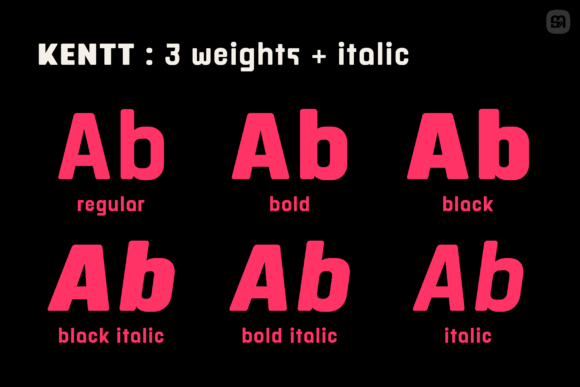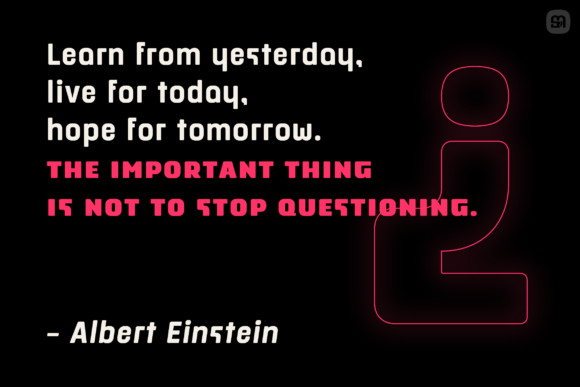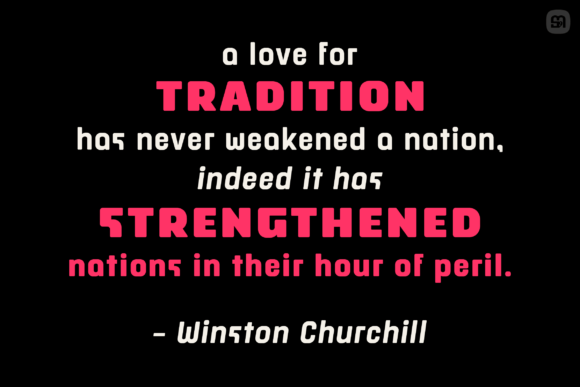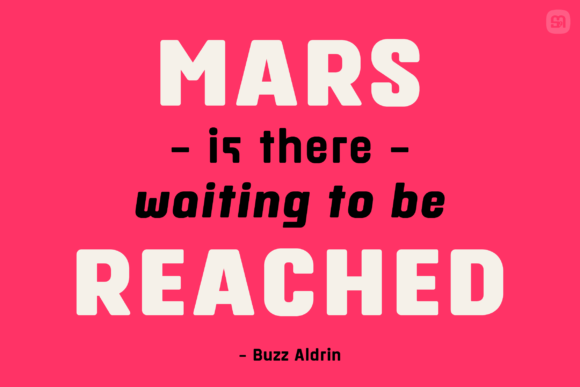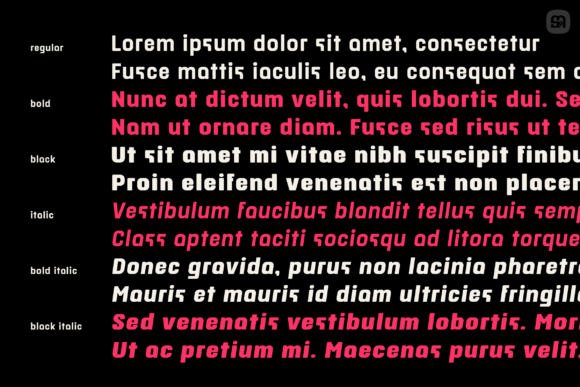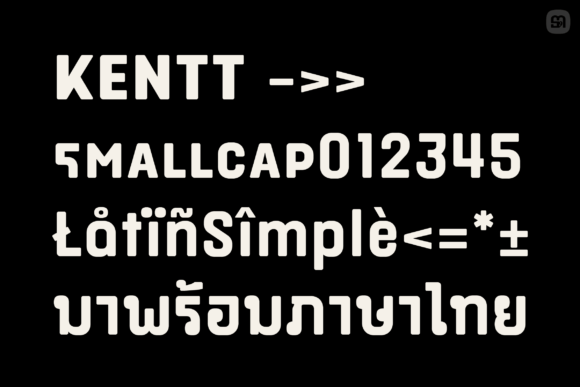
Introduction to Kentt Font
Have you ever stared at a blank page, struggling to bring your creative vision to life? That’s where the magic of the right font can make all the difference. For designers and creatives, finding the perfect font can be the key to unlocking a truly exceptional design.
Enter the Kentt Font – a bold, display font that’s sure to elevate any project to the next level. With its striking design and high-quality feel, this font is a valuable addition to any designer’s toolkit. Whether you’re working on a high-profile campaign or a personal creative project, Kentt Font is the perfect design resource to help you make a lasting impression.
What sets Kentt Font apart is its versatility – it’s the perfect choice for any project, from graphic design to digital art. Plus, with a transparent background and free download option, it’s an accessible resource for designers of all levels.
Key Features of Kentt Font
- High-quality design for creative projects: Kentt Font is a versatile font suitable for a wide range of applications, from digital graphics to print materials.
- Transparent background option: This feature allows for seamless integration with any design, making it easy to create custom backgrounds and overlays.
- Large character set: Kentt Font includes a wide range of characters, including Latin, Cyrillic, and Greek alphabets, making it suitable for multilingual projects.
- High-resolution design: With a resolution of 300 DPI, Kentt Font is perfect for print materials, such as business cards, brochures, and posters.
Honest Review: Kentt Font
As a designer, I’m always on the lookout for high-quality fonts that can elevate my creative projects. Recently, I stumbled upon the Kentt Font, and I’m excited to share my honest review.
What works well: ✨ The Kentt Font is a modern sans-serif font that’s perfect for digital design projects. It’s highly legible, even on small screens, and has a clean, minimalist aesthetic that works well for a variety of creative projects.
Here are some of the features that make the Kentt Font stand out:
- High-quality design that’s perfect for digital design projects
- Transparent background option available, allowing for easy customization
However, I do have a few limitations to note: ⚠️ The Kentt Font is only available in a few weights, which may limit its versatility for certain projects.
Overall, I’m impressed with the Kentt Font’s high quality and modern design. While it may have some limitations, it’s a great addition to any designer’s toolkit. I’d definitely recommend it for any creative project that requires a clean and modern aesthetic.
Kentt Font
Kentt Font is a great design resource for creating high-quality designs with a transparent background.
With Kentt Font, you can create professional-looking designs for your creative project.
Tips for Getting the Most Out of Kentt Font
Use Kentt Font for creating headings and titles to add a touch of elegance to your designs.
Experiment with different font sizes and styles to get the most out of Kentt Font.
Kentt Font is perfect for creating designs for branding, marketing materials, and creative projects.
Use Kentt Font for creating social media graphics, posters, and flyers with a transparent background.
Alternatives to Kentt Font
Montserrat Font is a popular sans-serif font known for its clean and modern design. It’s ideal for creative projects that require a high-quality, transparent background. You can download it for free from Google Fonts. Montserrat Font is similar to Kentt Font in its minimalist approach, but it has a more geometric feel to it.
Is the Kentt Font suitable for designs with transparent backgrounds?
Yes, the Kentt Font features a transparent background, making it ideal for designs that require a high level of customization and flexibility. This feature allows you to easily combine the font with other design elements, such as images and graphics, to create unique and visually striking designs.